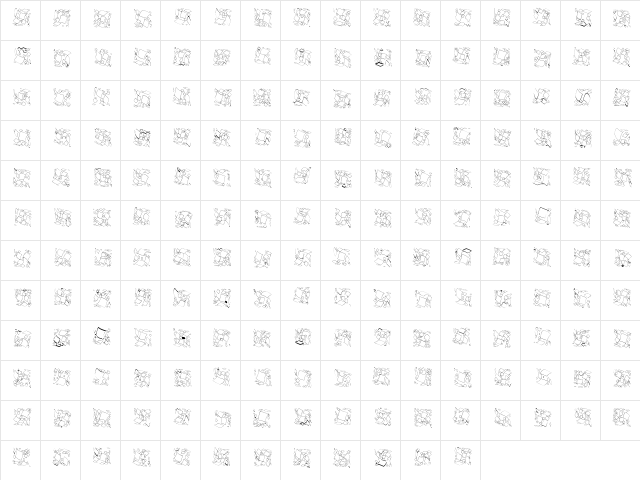
CarpetPartsCFS Regular
Design Context for CarpetPartsCFS Typeface
CarpetPartsCFS is a composed and adaptable typeface that performs quietly and consistently across a wide range of design contexts.